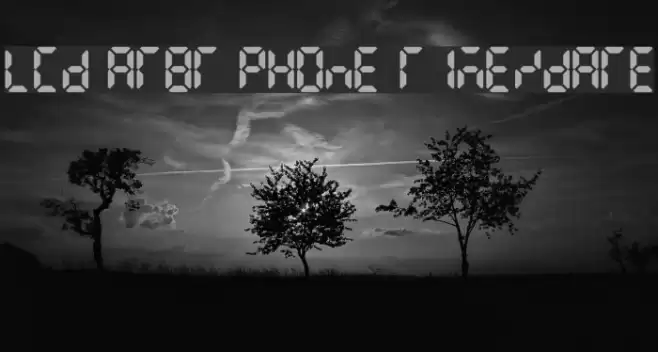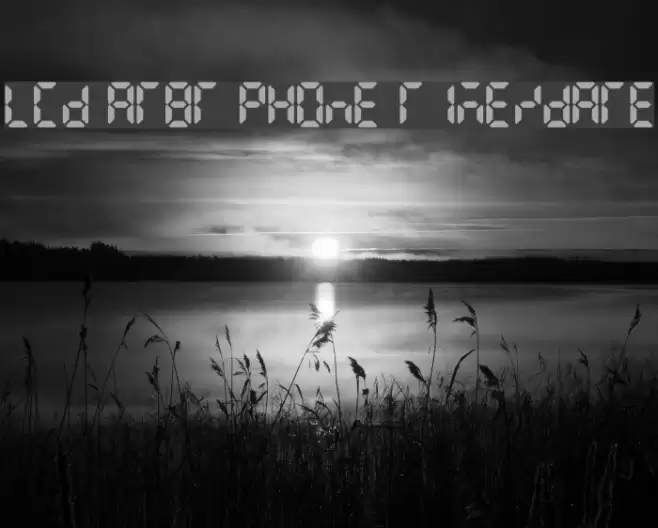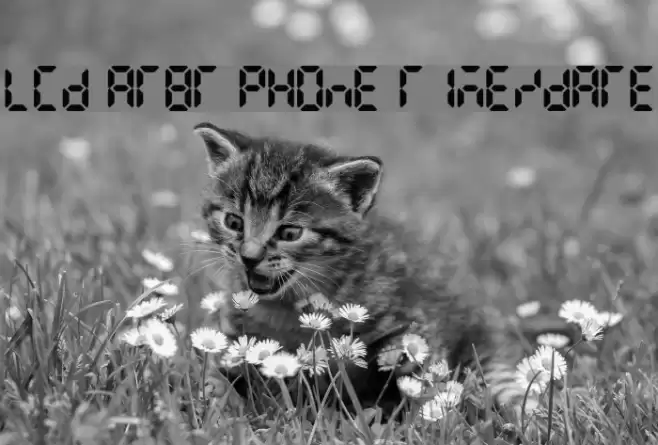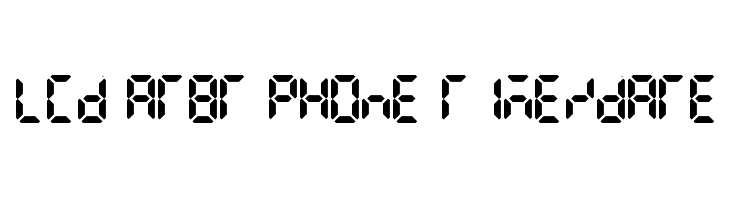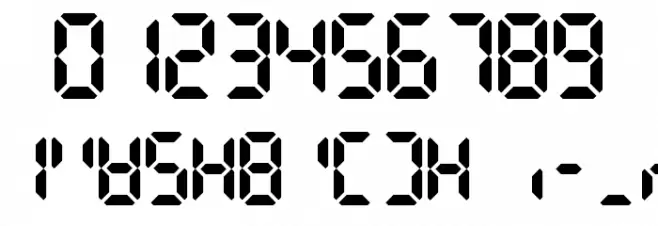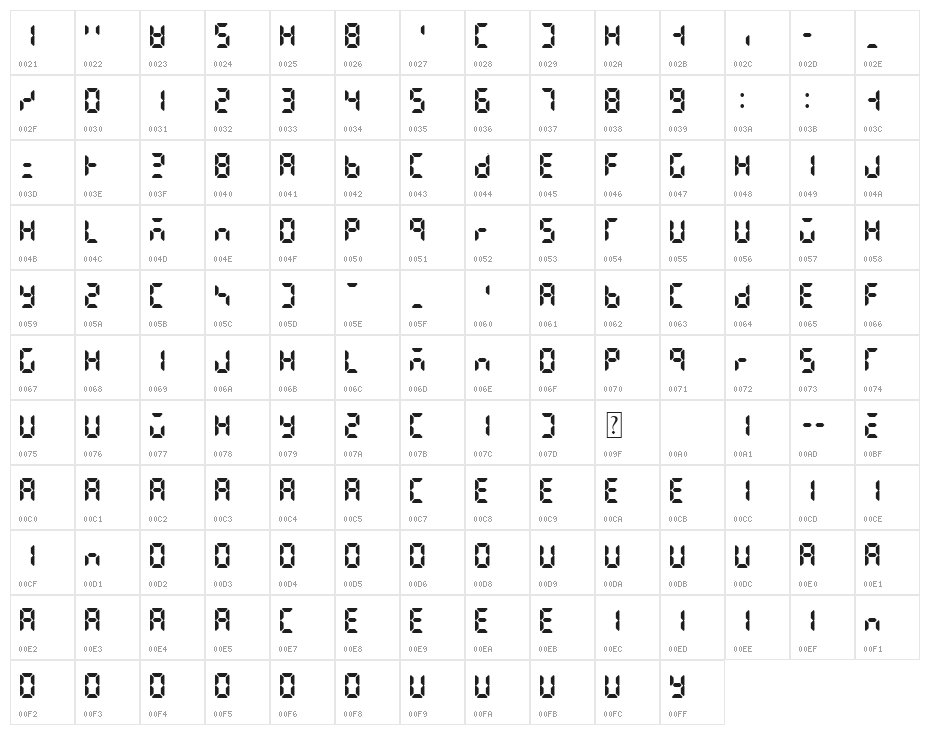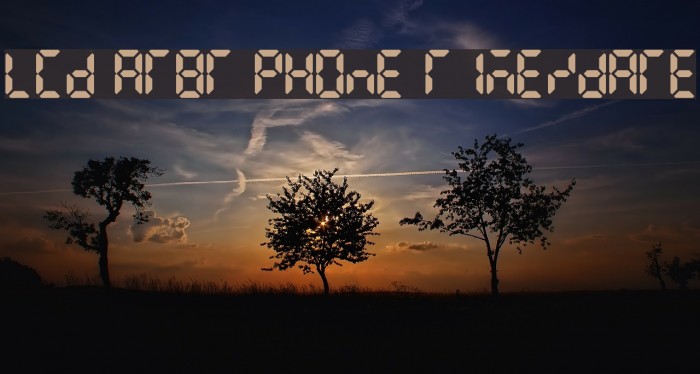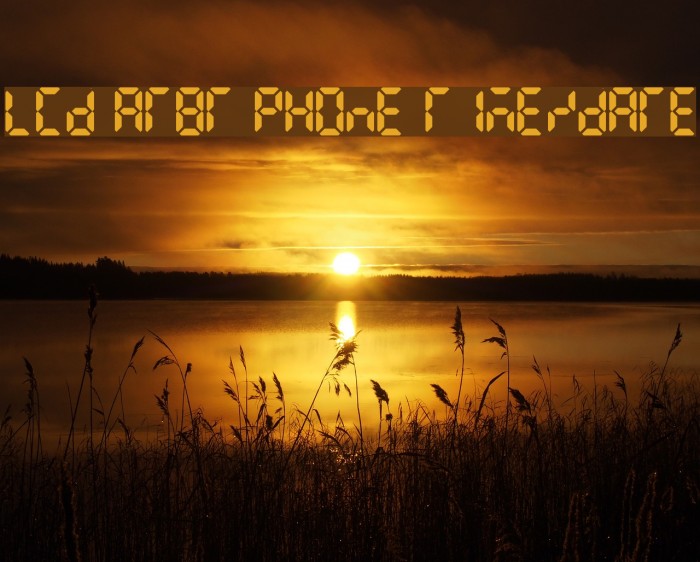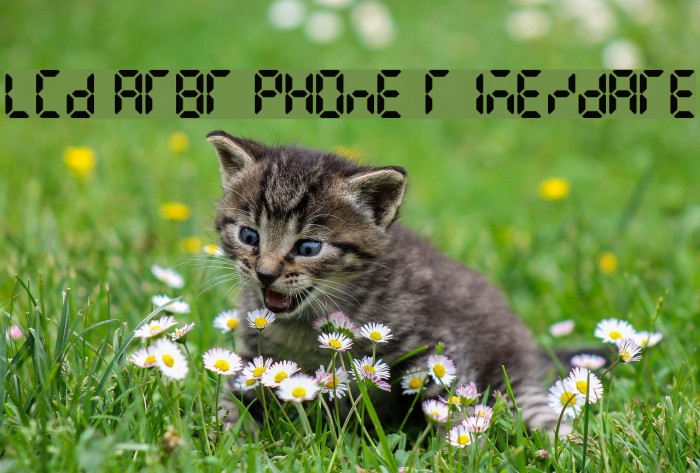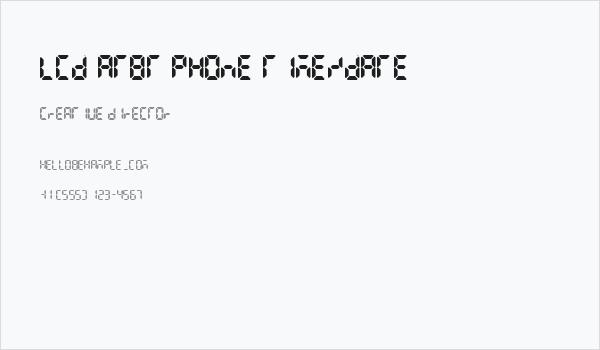
LCD AT&T Phone Time/Date Font
LCD AT&T Phone Time/Date Description
This font is inspired by the classic digital displays found on LCD screens, featuring a segmented design that mimics the appearance of electronic devices. Each character is constructed from a series of straight lines and angles, creating a geometric and technical aesthetic. The uppercase and lowercase letters, as well as the numbers, maintain a consistent style that emphasizes clarity and functionality. This font is particularly effective for conveying a modern, technological feel, making it ideal for digital interfaces, tech-themed projects, and any application where a futuristic look is desired.
A segmented, geometric font inspired by classic LCD digital displays from Futuristic fonts.
- Proposed Projects: Ideal for digital interfaces, tech-themed designs, electronic device branding, and futuristic projects.
- Use Case: Headlines, Digital displays, Tech interfaces